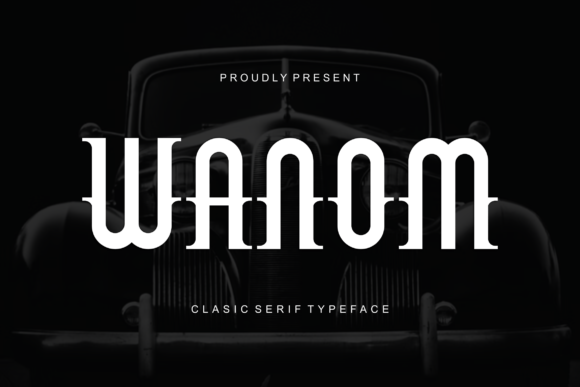
Introducing Wanom Font - The Ultimate Typographic Weapon for Esport Logos That Captivates and Commands Attention
In the competitive world of esports, where every pixel and every move counts, your logo is your identity, your flag, and your battle cry. It's what sets you apart from the competition and leaves a lasting impression on your opponents and fans alike.
With Wanom Font, you have the power to create an esport logo that radiates energy, demands respect, and inspires awe. This electrifying display font is a typographic masterpiece, meticulously crafted to ignite passion and leave an indelible mark on the esports arena.
Unleash the Thrill of Victory with Wanom Font
Wanom Font is more than just a font; it's a weapon that empowers you to conquer the digital battlefield. Its bold and dynamic characters exude an aura of confidence and power, perfectly capturing the essence of esports competition.
With its sharp angles, energetic curves, and captivating letterforms, Wanom Font commands attention and demands respect. It's the perfect choice for creating logos that embody the intensity of esports, whether you're a professional gamer, a team owner, or a passionate fan.
Ignite Your Creativity with Endless Possibilities
Wanom Font is not just limited to esport logos; it's a versatile font that can elevate any design project to new heights. Its playful and energetic style adds a touch of excitement to posters, flyers, social media graphics, and even website designs.
Whether you're a graphic designer, a content creator, or simply someone who loves to express themselves through typography, Wanom Font is the perfect tool to add a spark of creativity and originality to your work.
Tap into the Power of Emotional Connection
Wanom Font has a unique ability to connect with audiences on an emotional level. Its dynamic and energetic characters evoke feelings of excitement, passion, and determination. When used in esport logos, it creates a sense of anticipation and adrenaline, drawing viewers into the competitive spirit of the game.
By harnessing the emotional power of Wanom Font, you can create logos that resonate with your target audience, leaving a lasting impression that goes beyond mere aesthetics.